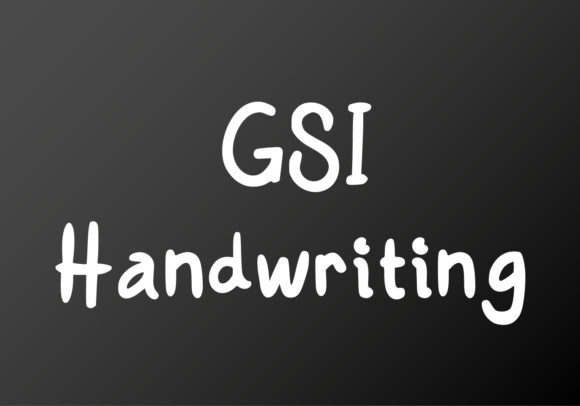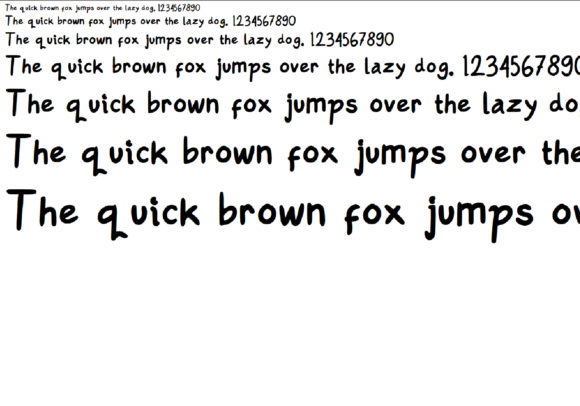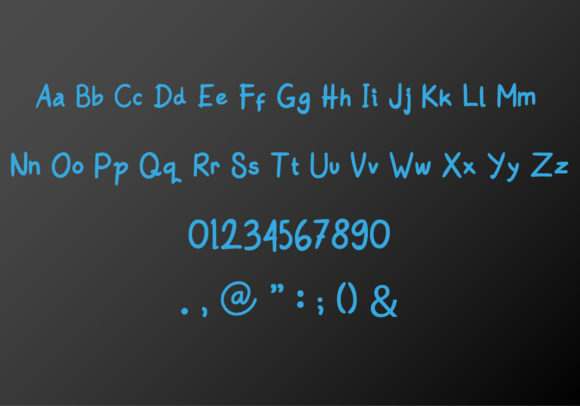
GSI Handwriting Font
GSI Handwriting is a simple and natural handwritten font. Add it to any design idea you can think of and notice how it makes it come alive!